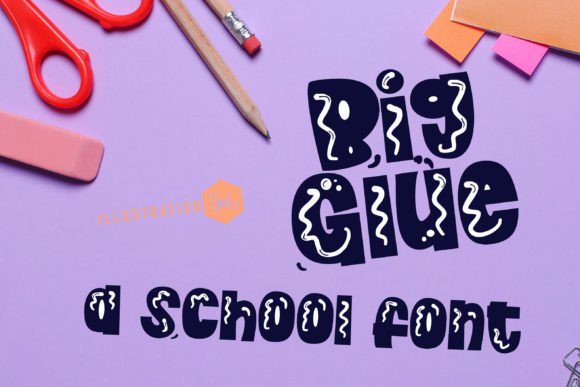
Introducing Big Glue Font: A Whimsical Hand-Crafted Sans Serif
In the world of typography, fonts play a crucial role in conveying the tone and personality of a message. For designers and crafters, finding the perfect font can make all the difference in creating visually appealing and engaging content. One such font that has gained popularity in recent times is the Big Glue Font, a hand-crafted sans serif font with a unique twist – it’s filled with glue throughout!
A hand-crafted font is a typeface that is designed to look like it was written by hand. It’s often used for invitations, greeting cards, and other items where a personal touch is desired. Handwritten fonts can be either formal or informal, and they can be used for a variety of purposes, from digital designs to print materials.
Hand-crafted fonts are characterized by their unique and often imperfect letterforms, which give them a distinctive, handmade feel. They can add a touch of warmth and personality to any design, making them perfect for projects that require a more personal approach.
The Big Glue Font: A Whimsical Sans Serif
The Big Glue Font is a hand-crafted sans serif font that takes the traditional sans serif font to a new level. With its glue-filled design, this font adds a playful and whimsical touch to any project. The font’s letters are carefully crafted to resemble handwriting, with a consistent thickness and texture that gives it a friendly, approachable feel.
One of the standout features of the Big Glue Font is its versatility. It can be used for a wide range of projects, from digital designs to print materials, and can be easily paired with other fonts to create a unique and eye-catching combination.
Why Use the Big Glue Font?
So, why should designers and crafters choose the Big Glue Font for their projects? Here are just a few reasons:
- Unique and eye-catching: The Big Glue Font’s glue-filled design makes it stand out from other fonts, adding a touch of whimsy and personality to any project.
- Versatile: This font can be used for a wide range of projects, from digital designs to print materials, and can be easily paired with other fonts.
- Handmade feel: The Big Glue Font’s hand-crafted design gives it a distinctive, handmade feel that’s perfect for projects that require a personal touch.
- Easy to use: This font is easy to read and can be used in a variety of contexts, from headings to body text.
Tips for Using the Big Glue Font
Here are a few tips for using the Big Glue Font in your designs:
- Pair it with other fonts: The Big Glue Font can be paired with other fonts to create a unique and eye-catching combination. Try pairing it with a serif font for a bold and contrasting look.
- Use it for headings: The Big Glue Font is perfect for headings and titles, where its bold and playful design can really shine.
- Experiment with colors: The Big Glue Font can be used with a variety of colors to create a unique and eye-catching effect. Try using it with bright and bold colors to add a pop of personality to your design.
The Big Glue Font is a unique and versatile hand-crafted sans serif font that’s perfect for designers and crafters looking to add a touch of personality to their projects. With its glue-filled design and handmade feel, this font is sure to stand out from the crowd. Whether you’re creating digital designs or print materials, the Big Glue Font is a great choice for anyone looking to add a little whimsy and fun to their work.
So why not give the Big Glue Font a try? With its ease of use and versatility, it’s the perfect addition to any designer’s or crafter’s toolkit.